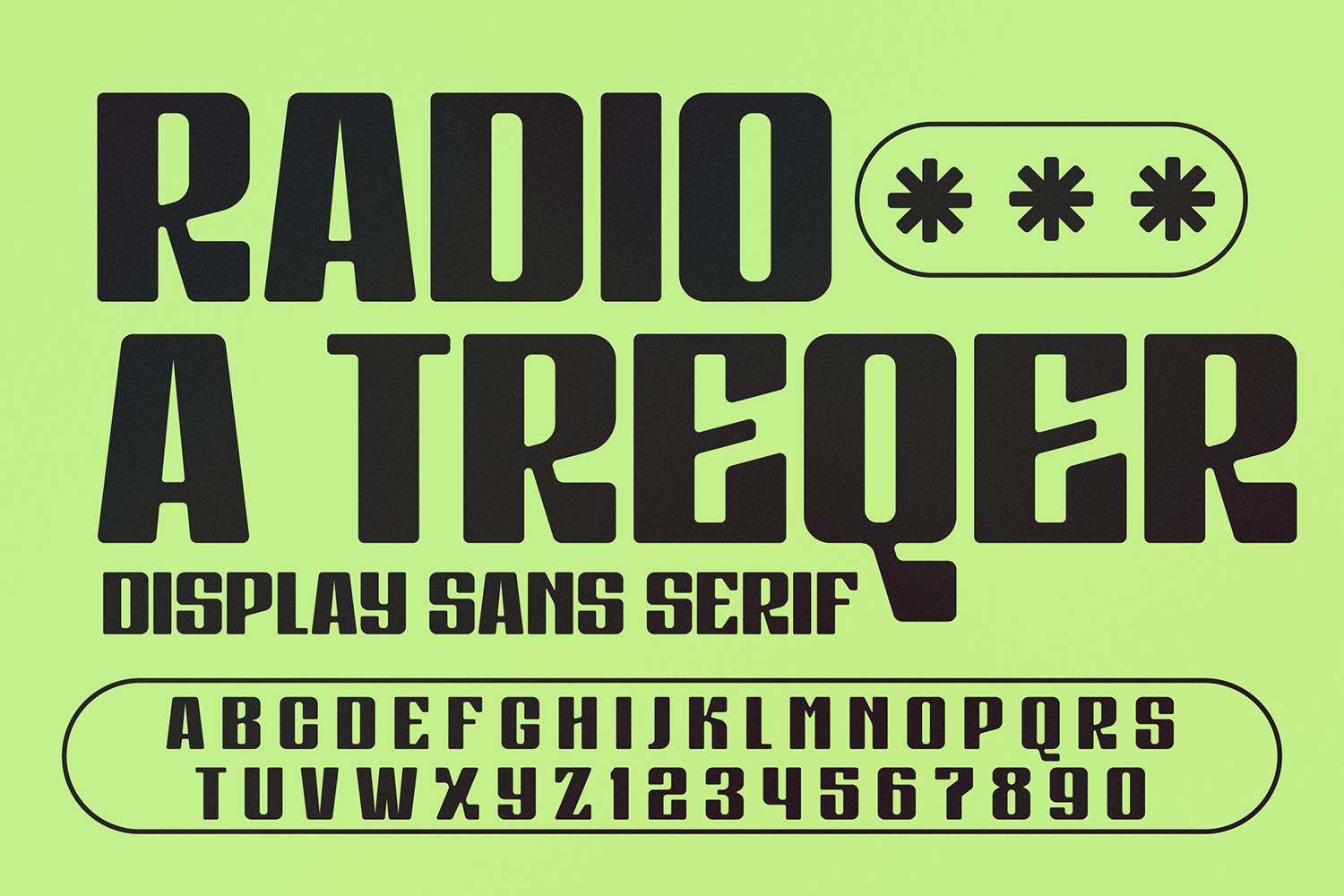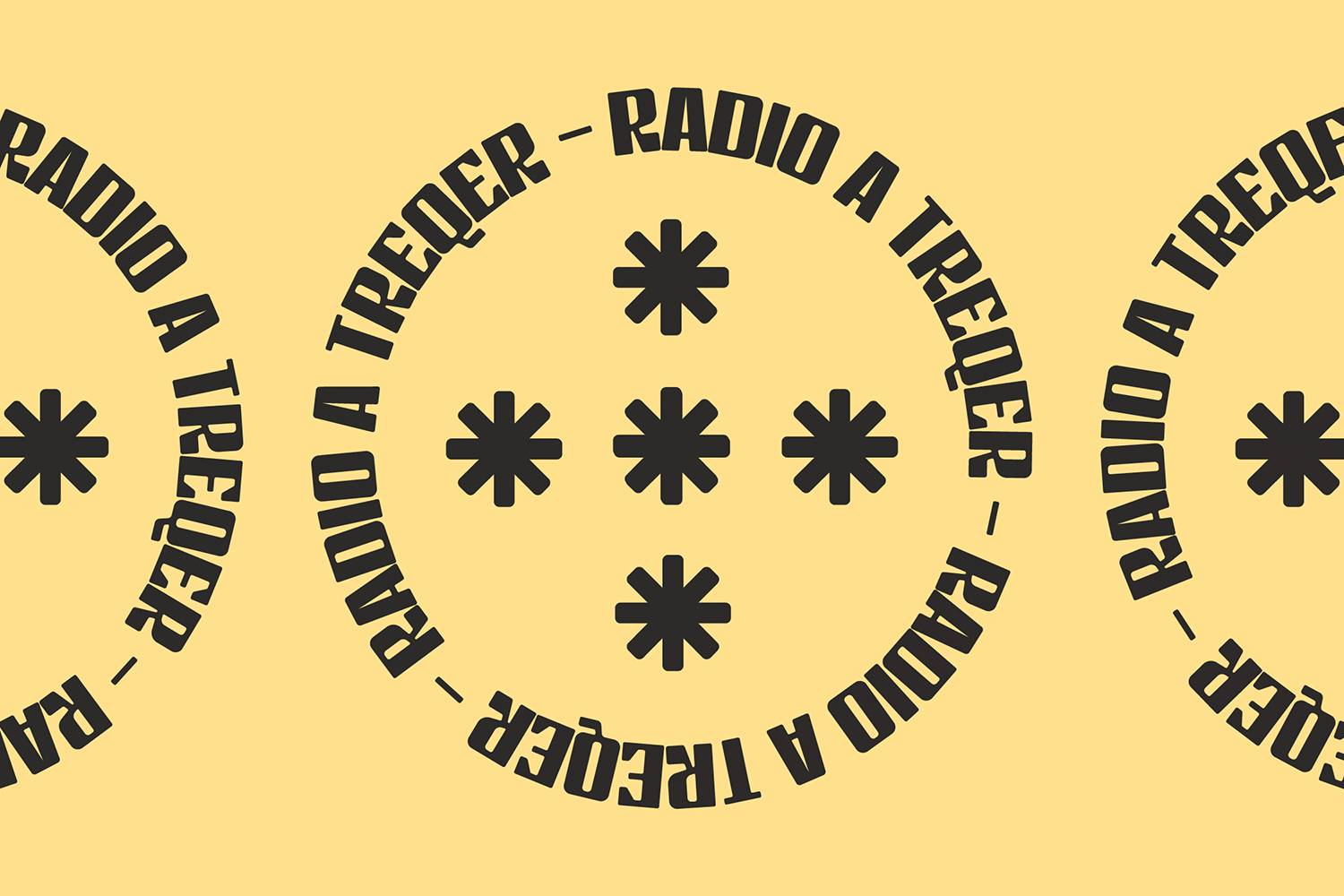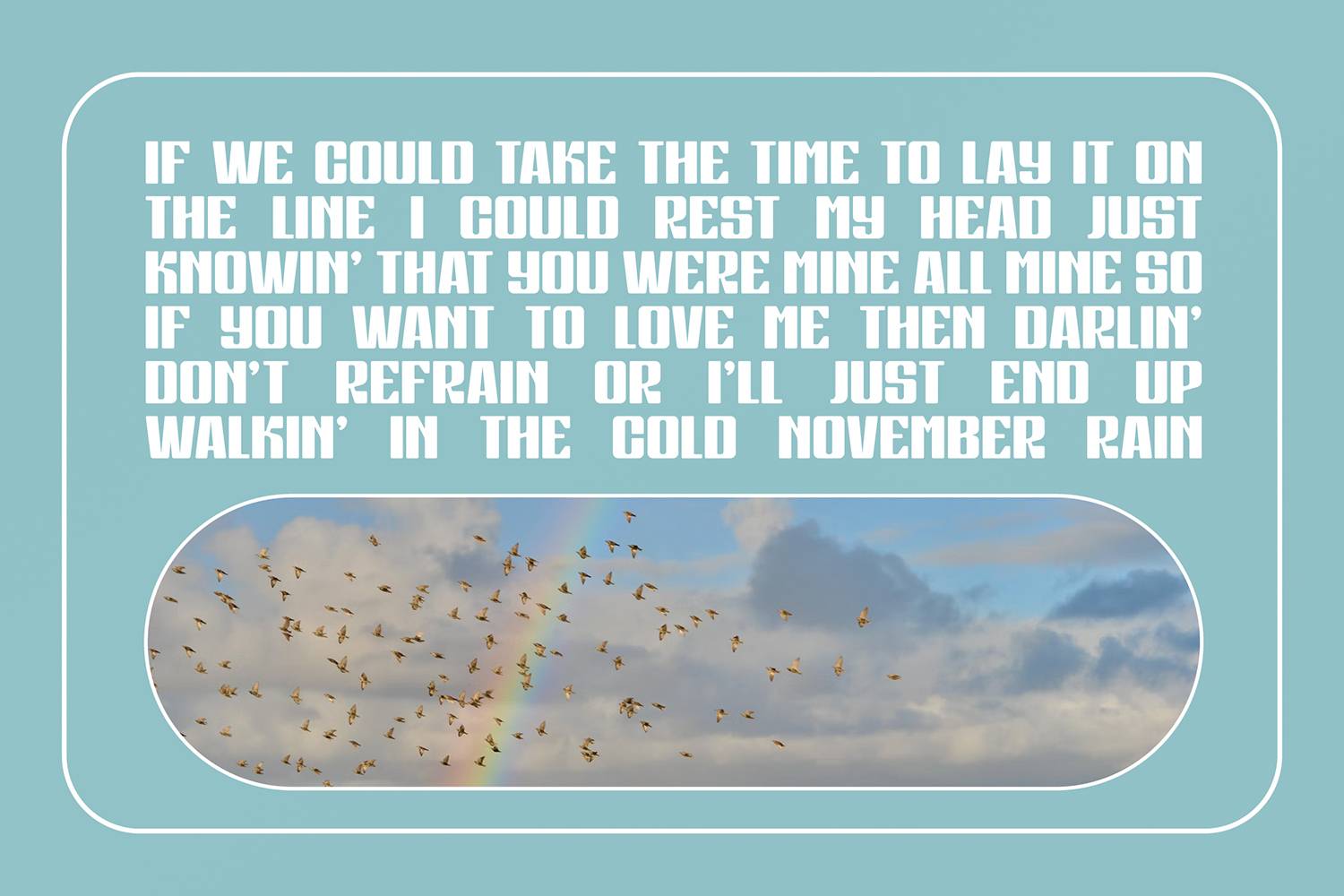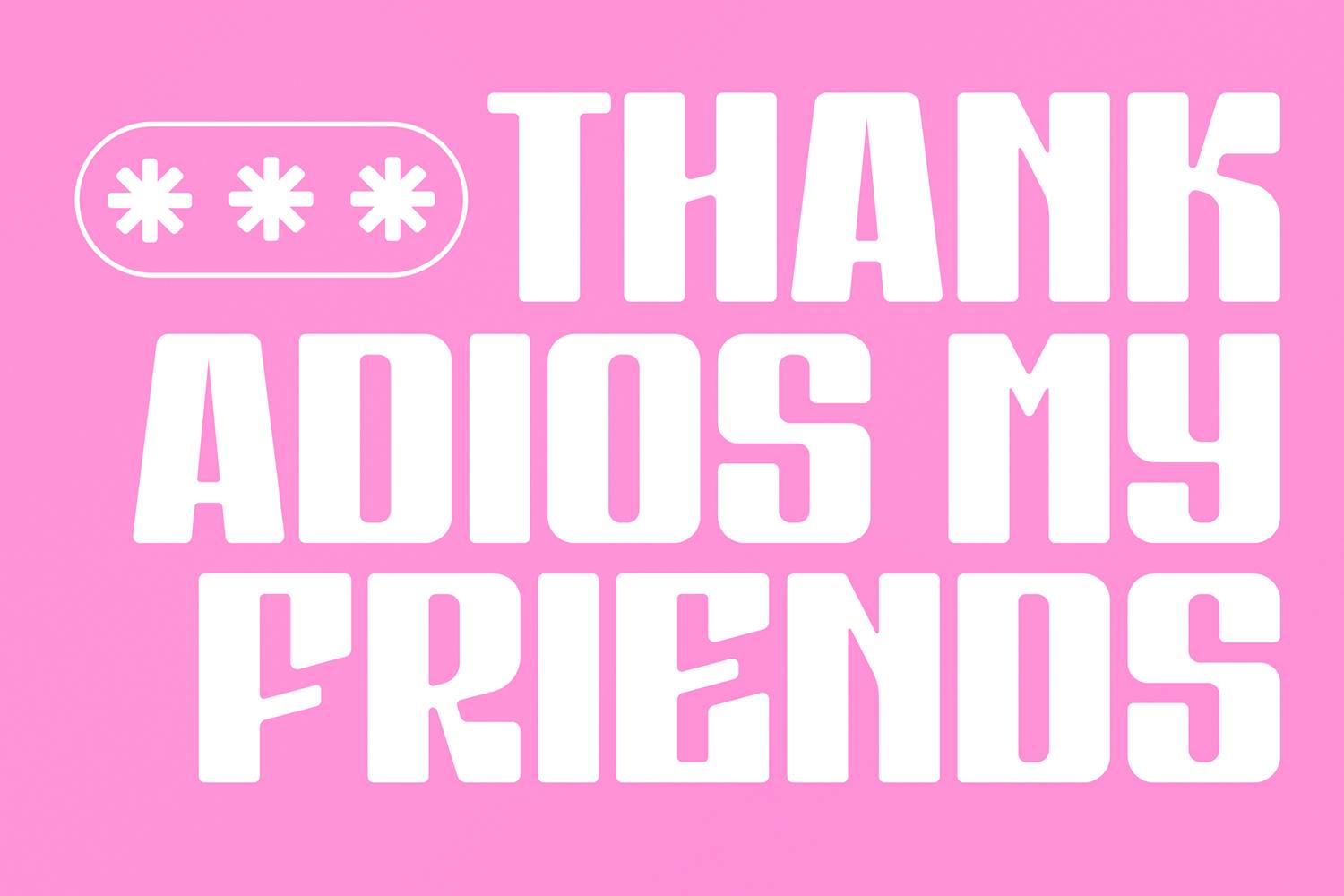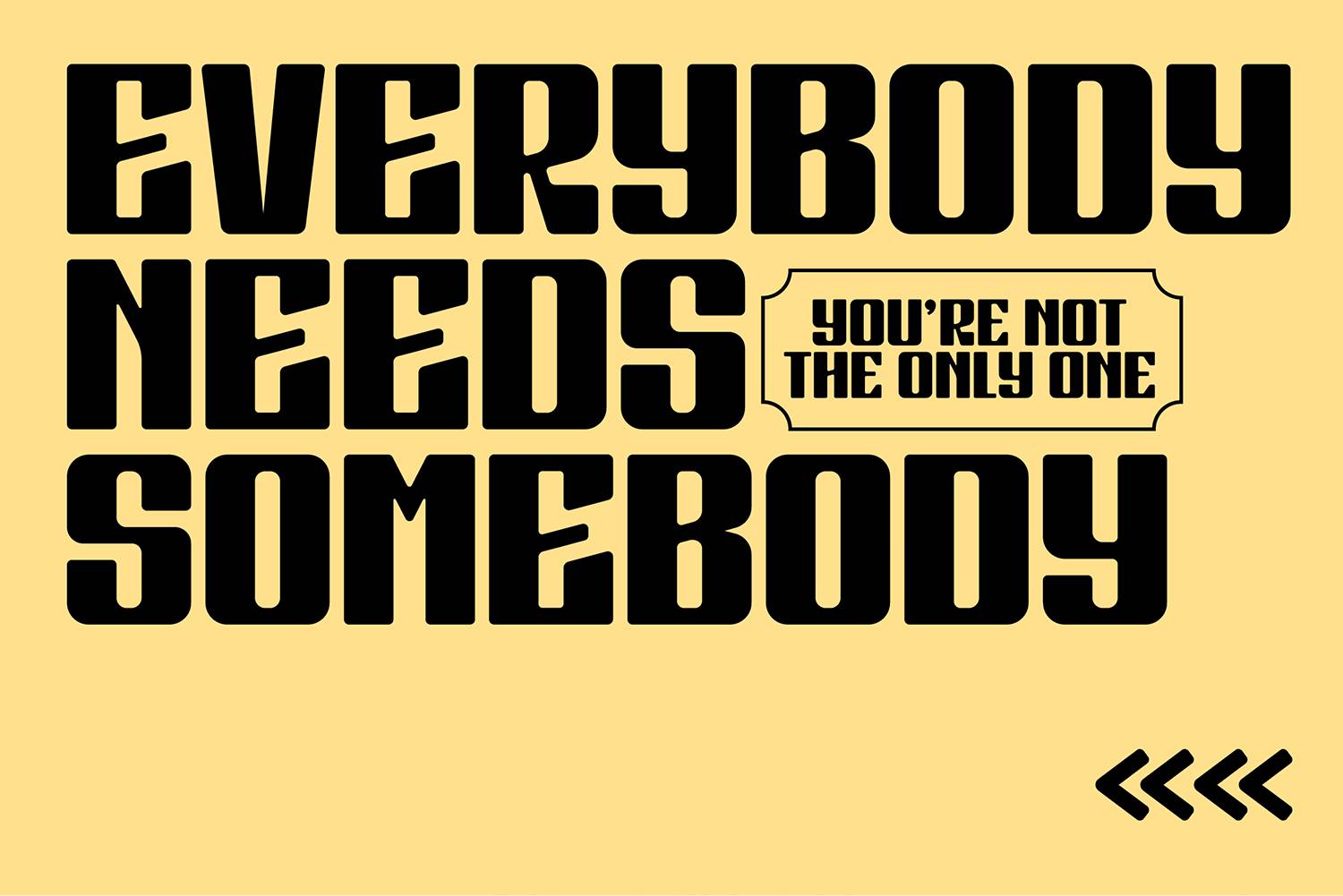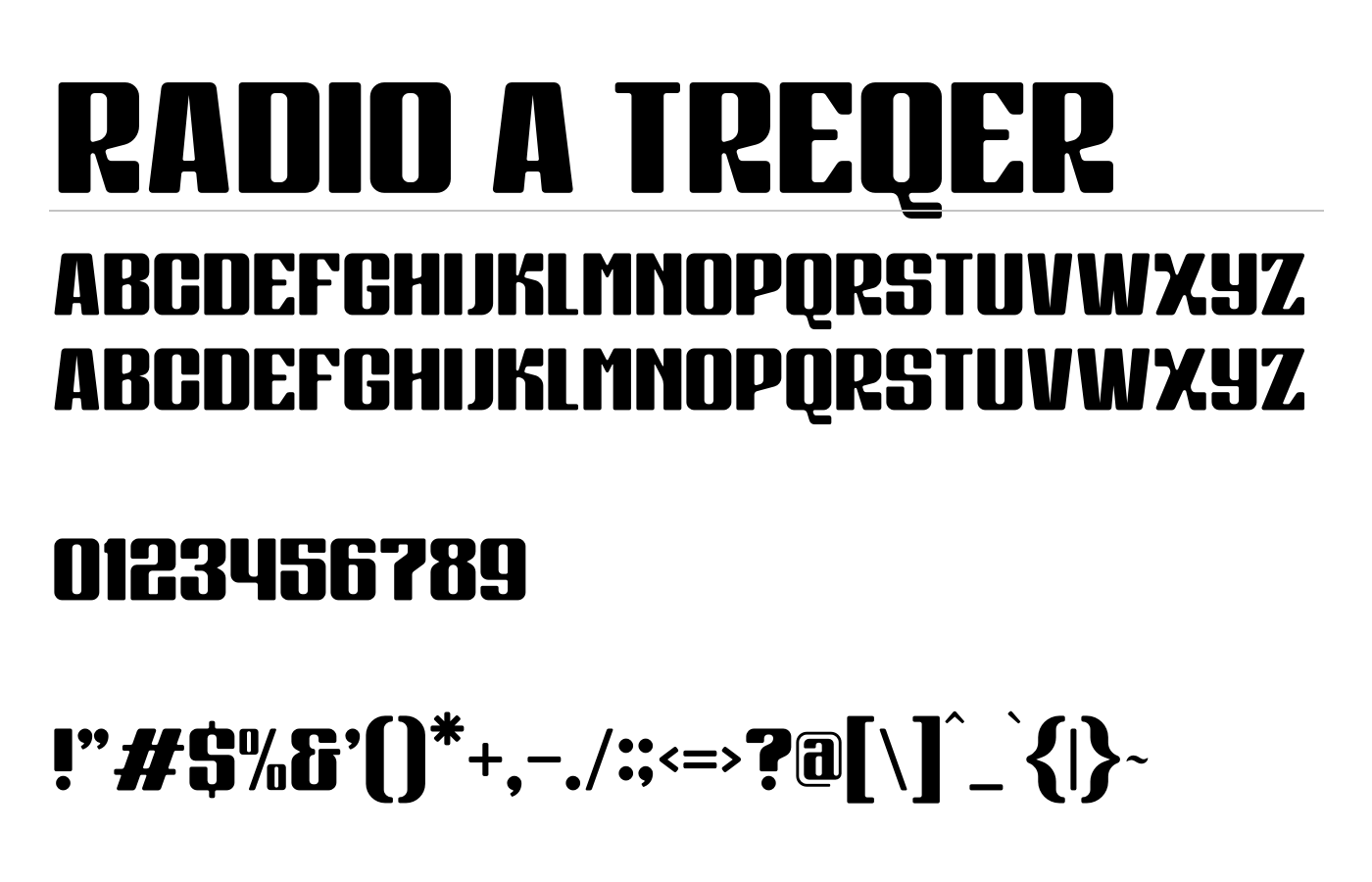
Radio a Treqer is a bold, condensed sans serif font with a strong industrial and modern vibe. Its tall, blocky letterforms with low contrast and squared edges create a sturdy, impactful appearance, making it ideal for headlines, posters, and branding projects that seek to convey confidence and urban energy. This font works well where a bold, attention-grabbing style is needed, especially in fashion, sports, or streetwear branding.
Radio a Treqer Font
About Radio a Treqer Font